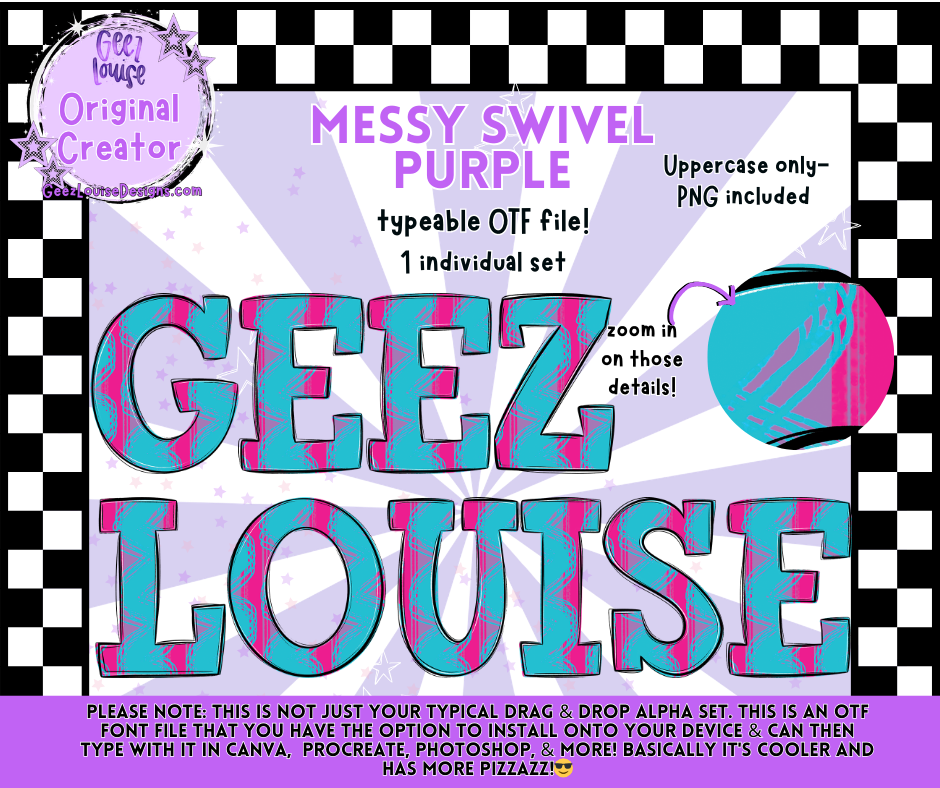
MESSY SWIVEL PURPLE — Typeable OTF Alpha Font + PNGs
Whimsical, bold, and full of personality — Messy Swivel Purple brings a vibrant swirl of color and texture to your designs. This typeable OTF font is perfect for creators who love playful, artsy lettering with a boutique‑friendly finish.
Uppercase A–Z
Swirly mixed‑pattern textures